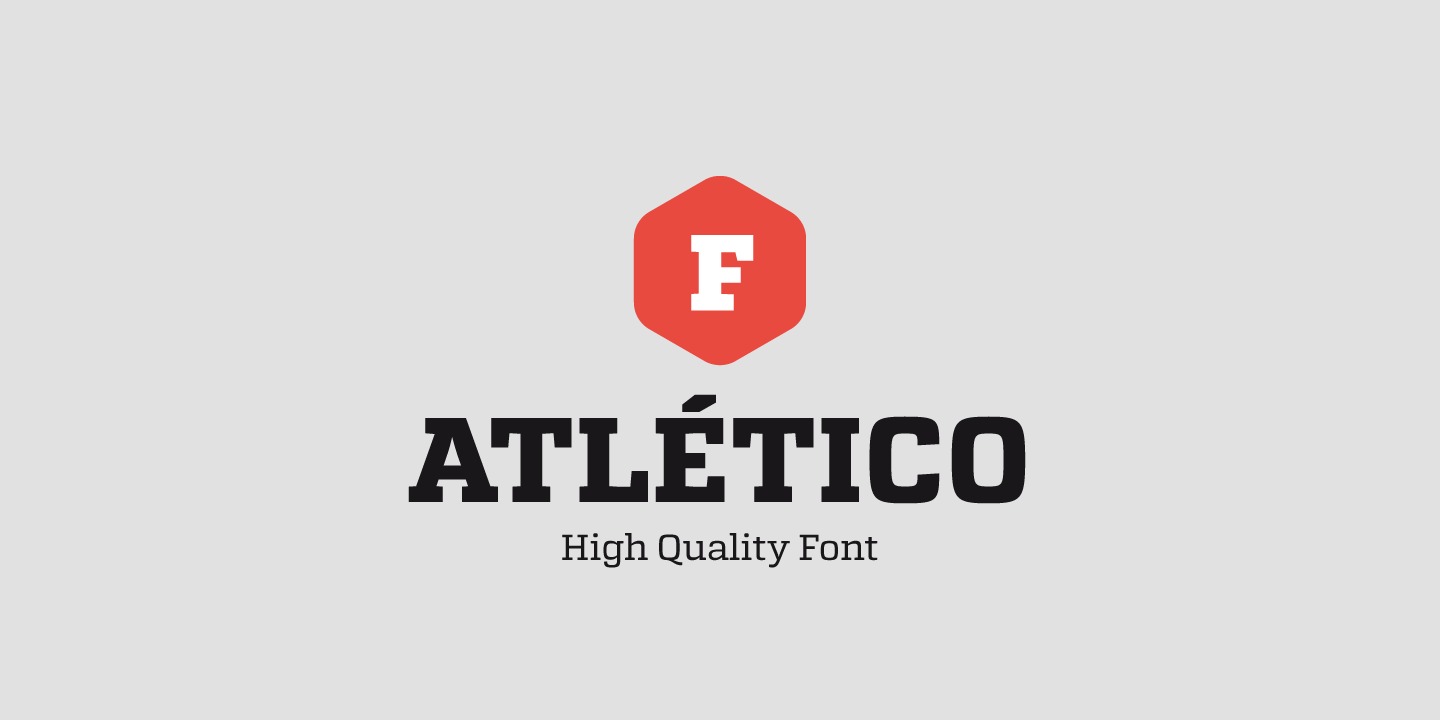
Atletico – Modern Slab Serif Font Family
Atletico – Modern Slab Serif Font Family is a versatile font designed to adapt beautifully across different design styles, offering dependable readability and balance. Atletico is a modern slab-serif display font family designed by Lukas Bischoff and Sascha Timplan for the artill foundry. With six weights ranging from Thin to Bold, it offers strong, blocky letterforms and solid serifs that create a confident and impactful look. Atletico is well suited for headlines, posters, branding, editorial layouts, and sports-inspired designs, performing best at display sizes where its bold character and clarity stand out.
Designer: Lukas Bischoff, Sascha Timplan